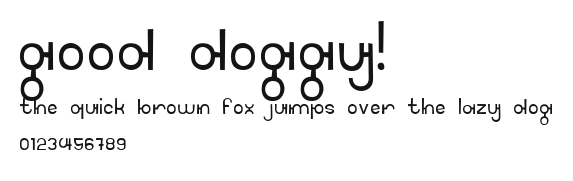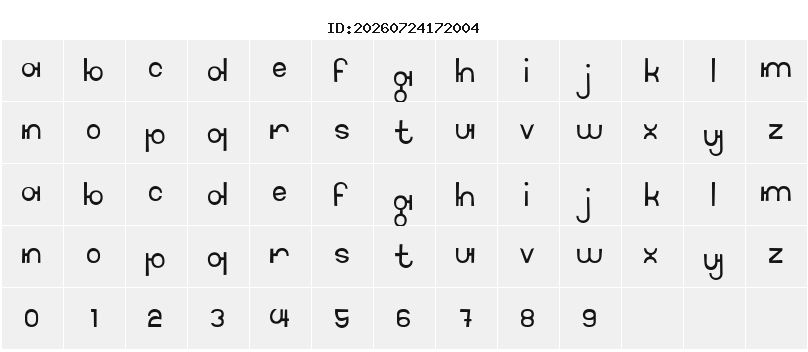
• Font Name: good doggy!
About good doggy!.ttf
good doggy!.ttf is a modern, elegant sans-serif font designed for ultimate readability and visual harmony. Perfect for branding, headlines, web design, and print materials.